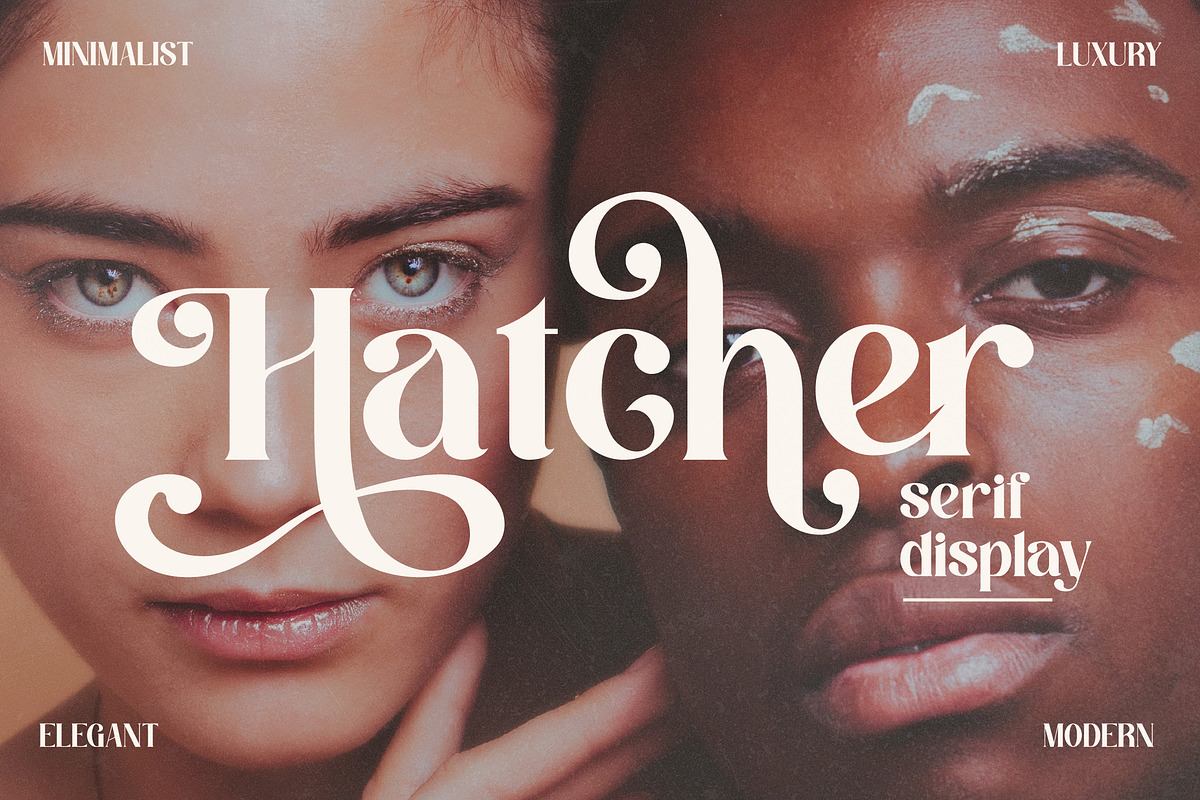
Hatcher Serif Display Font Free Download
Please note, you must purchase this font for commercial use. However, you can easily download Hatcher Serif Display Font Free Download for personal use and testing purposes. Hatcher Serif Display Font is a bold and sophisticated typeface with strong, distinctive serifs that make a statement in any design. Perfect for high-impact headlines, posters, logos, and editorial layouts, this font brings a timeless, classic touch with a modern twist. Hatcher Serif Display Font Free Download is ideal for projects that require attention-grabbing typography with an elegant, refined look. Whether you're creating a luxury brand identity or a powerful magazine spread, this font will ensure your message stands out with clarity and style. Download Hatcher Serif Display Font Free Download today and explore its potential before opting for a commercial license.